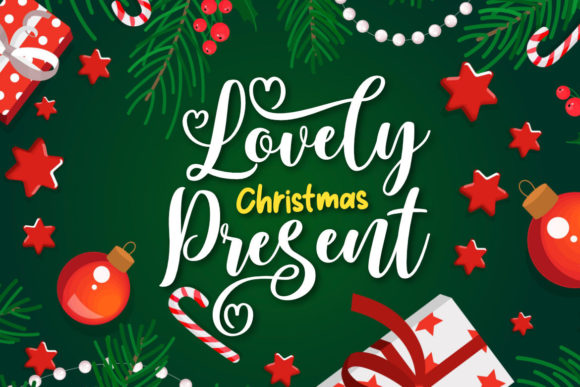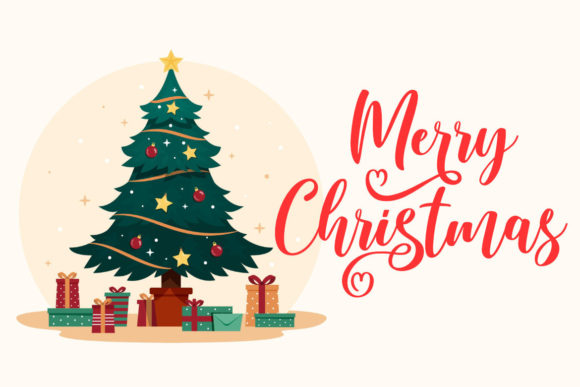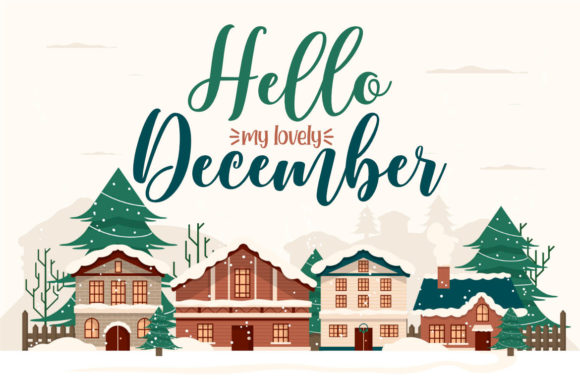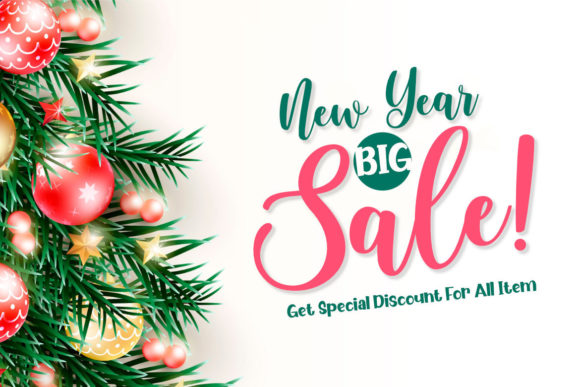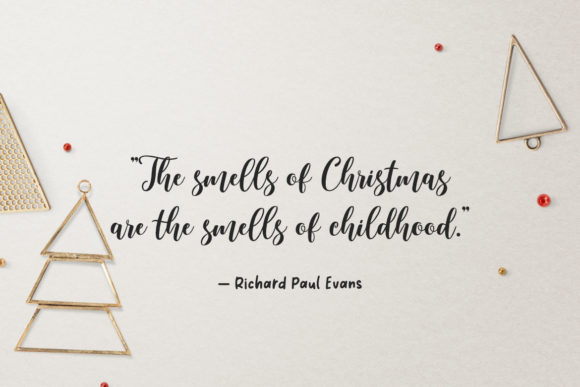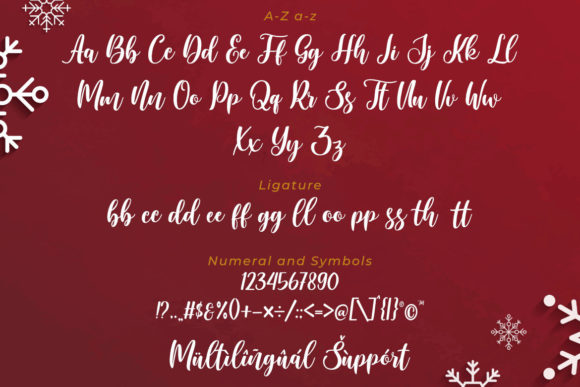
Introducing Beloved Christmas: The Ultimate Festive Font for Your Holiday Creations
Are you tired of using the same old fonts for your holiday designs? Look no further! Beloved Christmas is a sweet, joyful, and festive handwritten font that’s sure to elevate your creations and make them stand out from the crowd. In this article, we’ll dive into the features and benefits of this amazing font, and explore how it can become an incredible asset to your font library.
A Festive Font that’s Full of Joy and Cheer
Beloved Christmas is a beautifully crafted handwritten font that’s infused with the spirit of the holiday season. Its sweet and joyful design makes it perfect for a wide range of applications, from Christmas cards and invitations to holiday-themed crafts and DIY projects. Whether you’re a designer, crafter, or DIY enthusiast, this font is sure to bring a touch of festive magic to your creations.
What Makes Beloved Christmas So Special?
So, what sets Beloved Christmas apart from other fonts on the market? Here are just a few features that make it a standout:
- PUA Encoding: Beloved Christmas is PUA (Private Use Area) encoded, which means you can access all of the glyphs and swashes with ease. This makes it simple to use and customize the font to suit your needs.
- Handwritten Design: The font’s handwritten design gives it a personal and unique touch that’s perfect for holiday creations.
- Festive and Joyful: The font’s festive and joyful design makes it perfect for holiday-themed projects.
- Versatile: Beloved Christmas is versatile enough to be used for a wide range of applications, from digital designs to print projects.
How to Use Beloved Christmas in Your Designs
Beloved Christmas is easy to use and can be incorporated into a wide range of designs. Here are a few ideas to get you started:
- Christmas Cards and Invitations: Use Beloved Christmas to create beautiful and festive Christmas cards and invitations.
- Holiday Crafts: Add a touch of festive magic to your holiday crafts, such as DIY decorations, gift tags, and more.
- Digital Designs: Use Beloved Christmas in your digital designs, such as social media graphics, blog posts, and more.
- Print Projects: Use the font in your print projects, such as flyers, brochures, and more.
Benefits of Using Beloved Christmas
So, why should you choose Beloved Christmas for your holiday designs? Here are just a few benefits of using this amazing font:
- Save Time: With Beloved Christmas, you can create beautiful and festive designs in no time.
- Stand Out from the Crowd: The font’s unique and festive design will help your creations stand out from the crowd.
- Easily Customizable: With PUA encoding, you can easily access and customize the font’s glyphs and swashes.
- Versatile: Beloved Christmas can be used for a wide range of applications, making it a great addition to your font library.
In conclusion, Beloved Christmas is a sweet, joyful, and festive handwritten font that’s perfect for holiday designs. With its PUA encoding, handwritten design, and festive and joyful theme, it’s an incredible asset to your font library. Whether you’re a designer, crafter, or DIY enthusiast, Beloved Christmas is sure to bring a touch of festive magic to your creations. So why wait? Get your hands on Beloved Christmas today and start creating beautiful and festive designs!